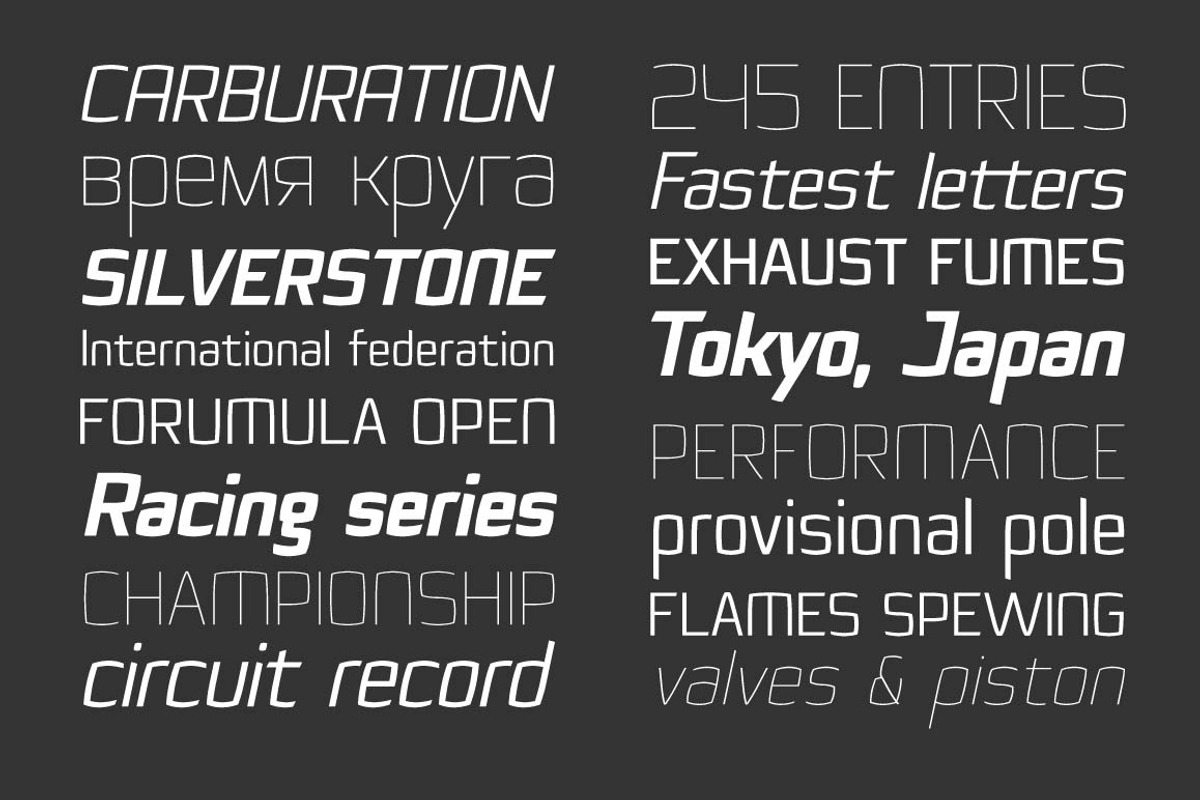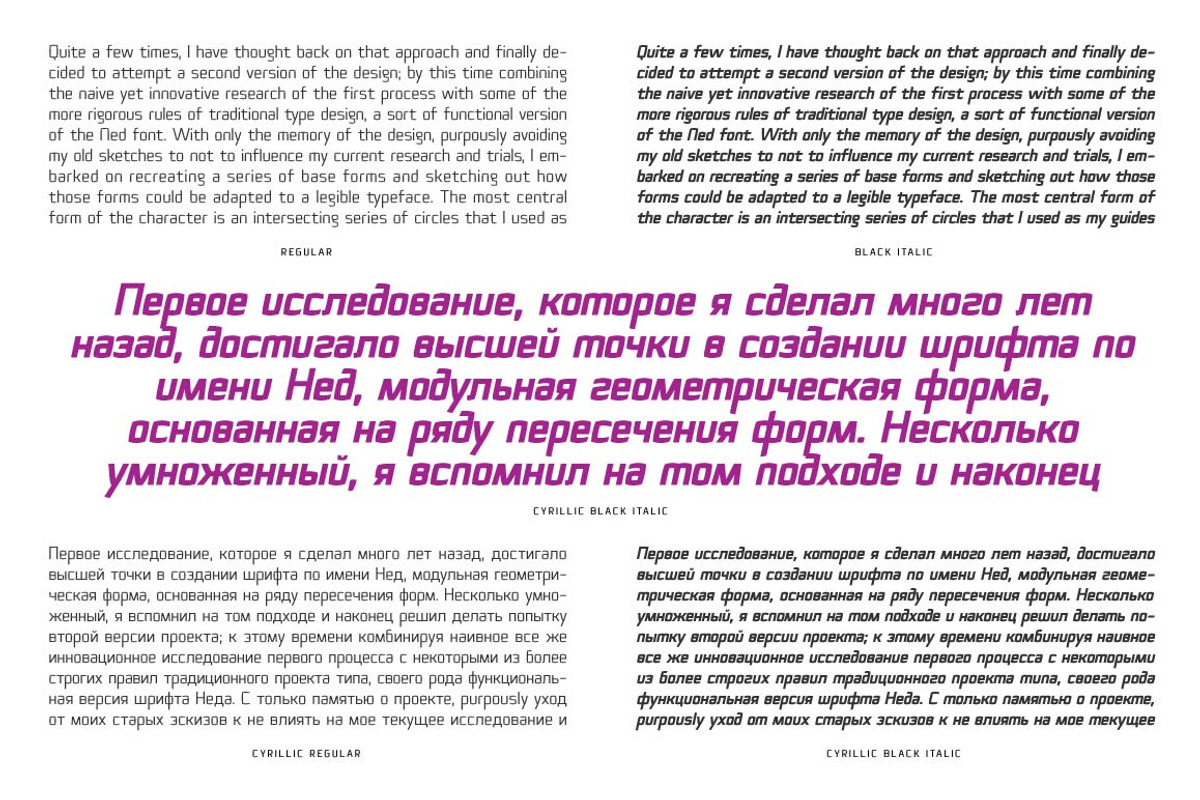
Quam
Quam is a contemporary sans serif typeface, designed to be used as either a display or text font. With a range of alternates, true small capitals and variable numerals, this design aims to be versatile and functional. An added function is the inclusion of the full Cyrillic encoding to allow the application of a wide range of scripts.
Opentype features: Ligatures, Alternates, Lining numerals, Scientific numerals, Fractions,